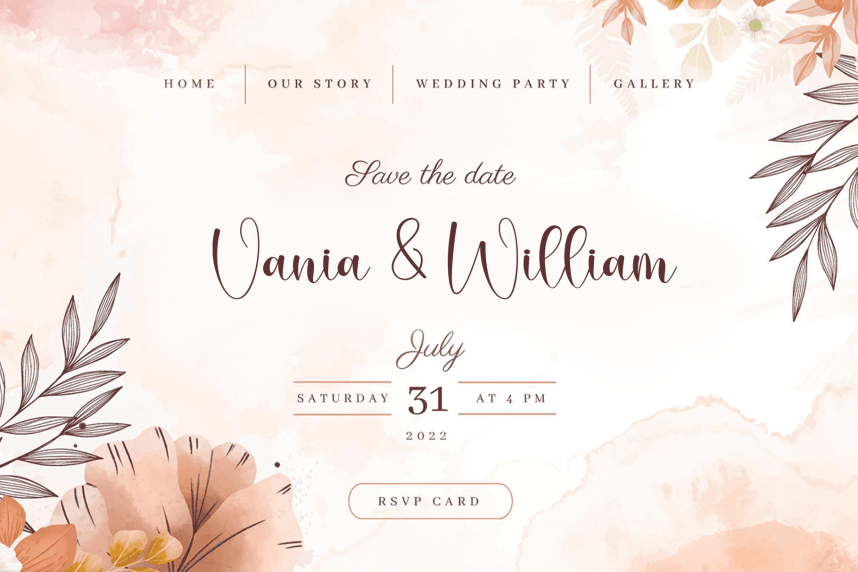
Mandala – Elegant Script Handwritten Font, special creative products for you, our products will give you an extraordinary experience. the latest style letters are perfect for wall displays, wedding invitations, social media post logos, advertisements, product packaging, product designs, labels, photography, watermarks, invitations, stationery, and any project that requires taste handwriting.